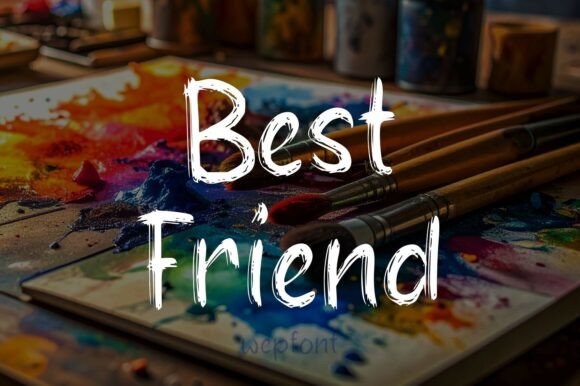
The Ultimate Companion: Uncovering the Charm of “Best Friend” Font
I’ll never forget the design project that led me to discover the “Best Friend” font. I was working on a custom invitation for a close friend’s wedding, and I was struggling to find the perfect script font that conveyed warmth, friendliness, and a touch of whimsy. That’s when I stumbled upon “Best Friend,” and it instantly became the voice of my design.
As I dove deeper into the world of “Best Friend,” I fell in love with its:
• ✨ Radiant, charismatic personality that shines through in every character
• ✅ Fluid, organic brush strokes that give it a genuine, handwritten feel
• 💫 Versatility in pairing with classic punctuation glyphs for effortless reading
• 🎨 Ability to add a touch of quirkiness to any design project
However, I did notice a few minor quirks:
• 🤔 Some characters may appear slightly condensed, which can affect readability at smaller font sizes
• ⚠️ Limited availability of language support, which might be a concern for multilingual projects
The Story Behind “Best Friend”: A Designer Inspiration
The “Best Friend” font was designed with the intention of capturing the warmth and familiarity of a heartfelt, handwritten letter from a close friend. The designer aimed to create a modern script font that subtly intertwines with a timeless appeal, making it versatile for various creative projects. Inspired by the joy of letter-writing and the beauty of handwritten communication, “Best Friend” was crafted to bring a touch of personality and whimsy to any design.
Font Name Best Friend Font
Author wep – Wahyu Eka Prasetya
What makes “Best Friend” font unique? The “Best Friend” font is unique due to its fluid, organic brush strokes and approachable, friendly style, which sets it apart from other script fonts.
Does “Best Friend” support OpenType features? Yes, “Best Friend” supports OpenType features, including stylistic alternates, glyphs, and ligatures, which can be accessed in compatible design software.